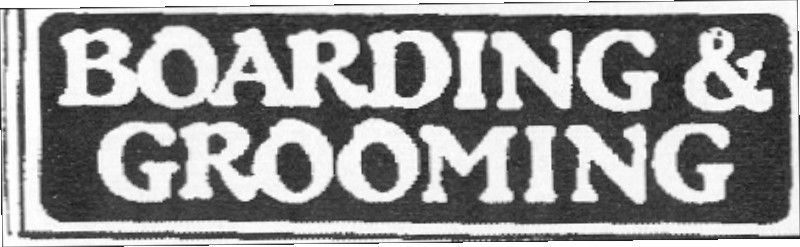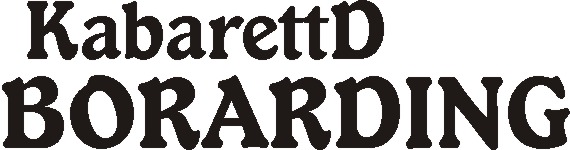
Is this a font?
This was made by an artist in the 1970s. It's a scan from a fax of a regular old-fashioned ink drawing on hot press.
I don't know if he hand-drew it from looking at Letraset or what.
Any ideas would be much appreciated. It does look familiar to me, and not something thought up at random. It has the feel of a Hoffmann or Cooper, but not quite either.
What the name of the font is, I cannot say but from the uniformity of similar letters it would certainly appear to be a font.
I managed to find it with some help.
It is a Letraset font, Le Robur Noir.
That can translate fairly well into Kabarett.
And since I'll be painting this, that's close enough.
Jill I was going to say that I have seen it before so its legit. I think I may even have it in my old Anagraph font library somewhere. Glad you found it.